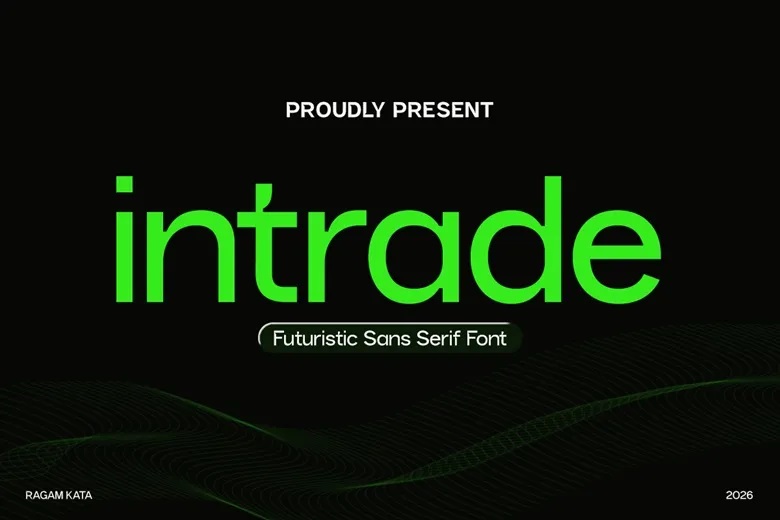
Intrade Font
Intrade is a modern sans-serif font shaped by current technology and digital styles. Its clean lines and smooth curves create a sleek, minimal look that catches the eye. With its balanced proportions and crisp style, Intrade works well for anyone looking to build a strong, professional brand. Intrade takes inspiration from the latest technology, startups, and sci-fi visuals, making it a great choice for projects that need a modern, high-tech look.
Whether you’re designing a brand, working on a user interface, creating a game, building digital products, or preparing a tech presentation, this font offers clarity, precision, and a futuristic feel. Its simple design makes it easy to read while still standing out.
Intrade Sans Serif Font